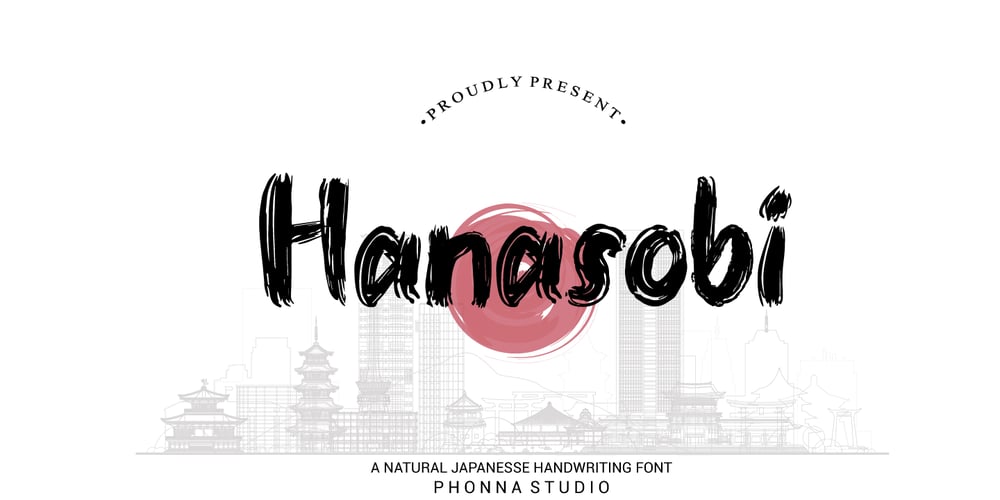
Hanasobi
Hanasobi font
Hanasobi Font Family was designed by Muhammad Suhery and published by Phonnastudio. Hanasobi contains 1 styles and family package options. Hanasobi is a Japanese bold handwritten font. It is made with the best brushes to become a true favorite. it appears wonderful, readable, and, ultimately, incredibly versatile. it is very helpful for various projects. what you get:· Alternative letter· Number and Punctuation· Lettering script format font · Include Multilingual support in Latin simple.